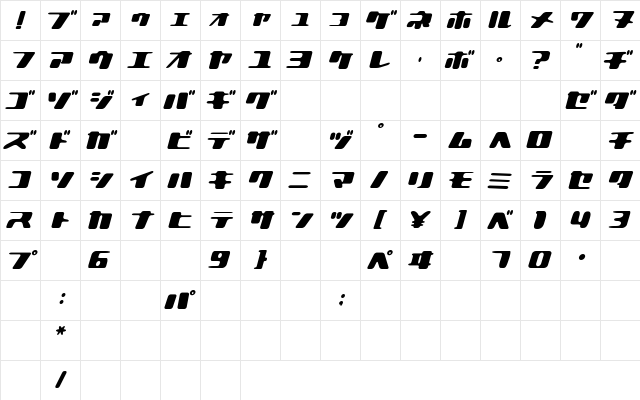
LBIlovely bold italic Kat
LBIlovely bold italic takes a measured approach to typography — its balanced proportions and neutral character make it a reliable workhorse for both digital and print work. The slanted form adds forward momentum and visual energy. Its bold stroke weight gives it real presence on the page.
Pro Tip: Use LBIlovely bold italic for emphasis, pull quotes, and subheadings where its slanted energy can add rhythm to the layout.